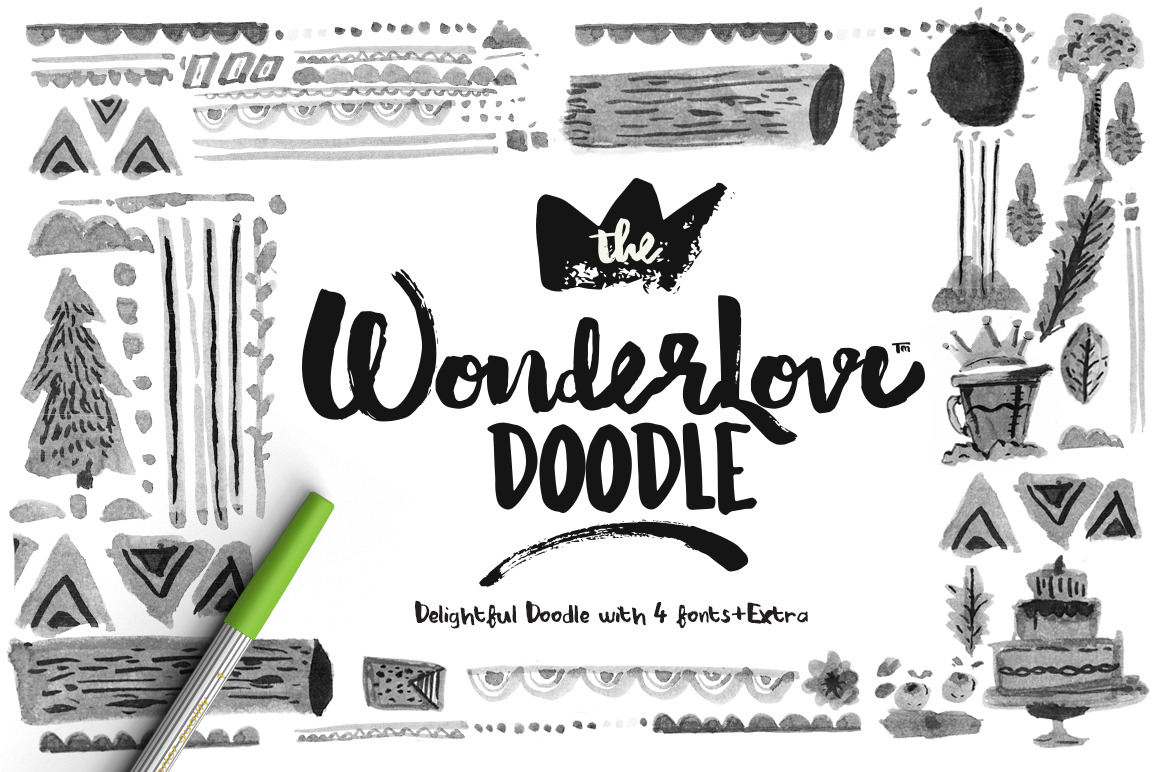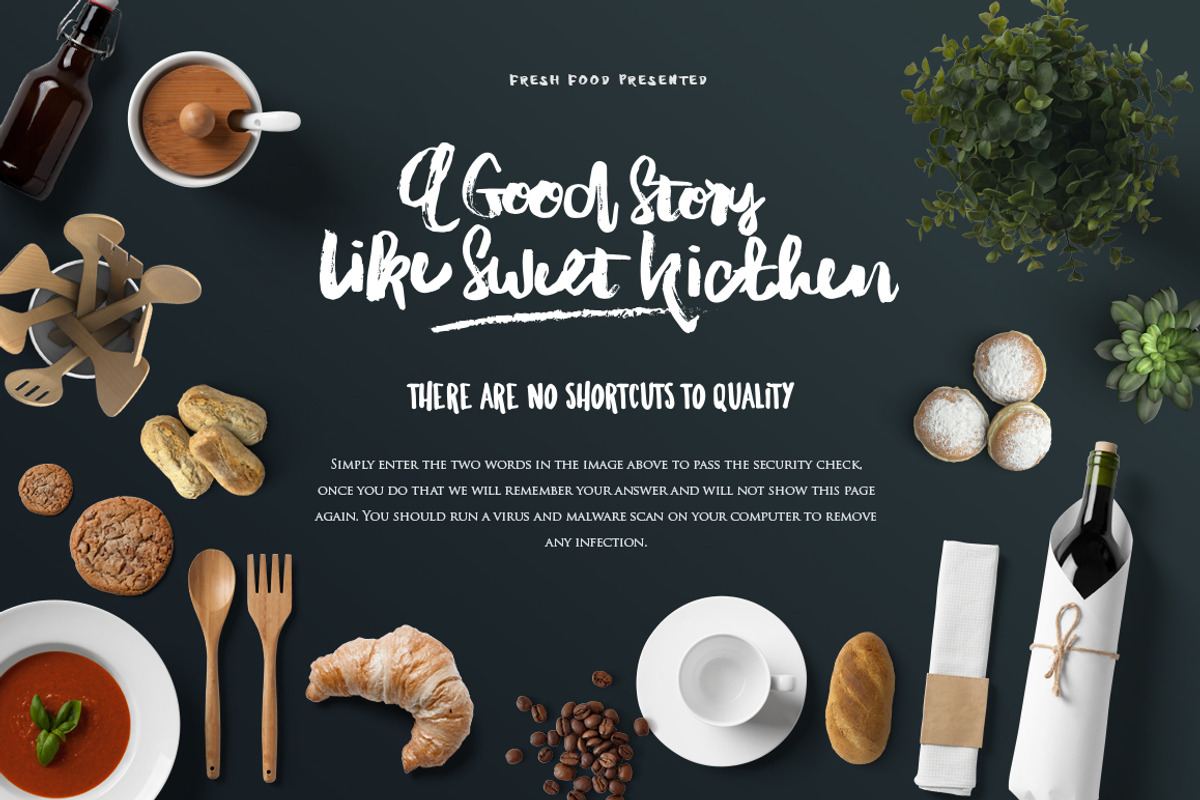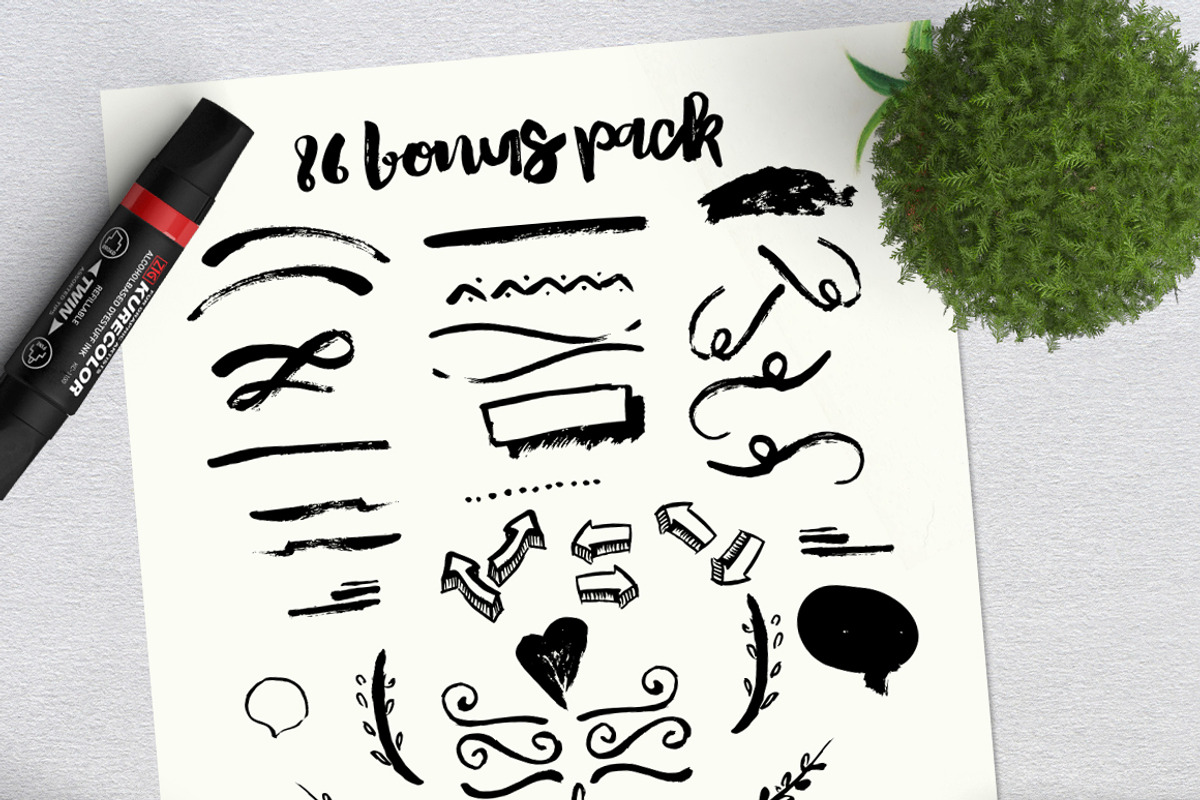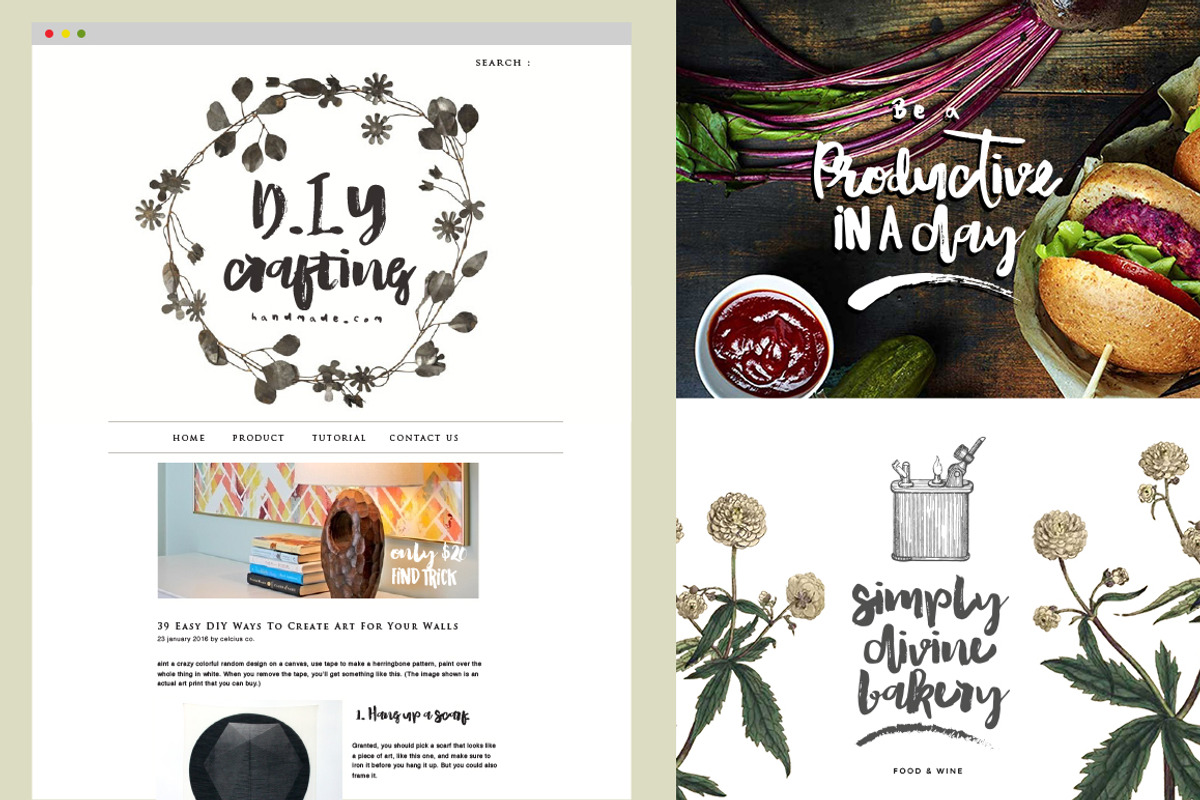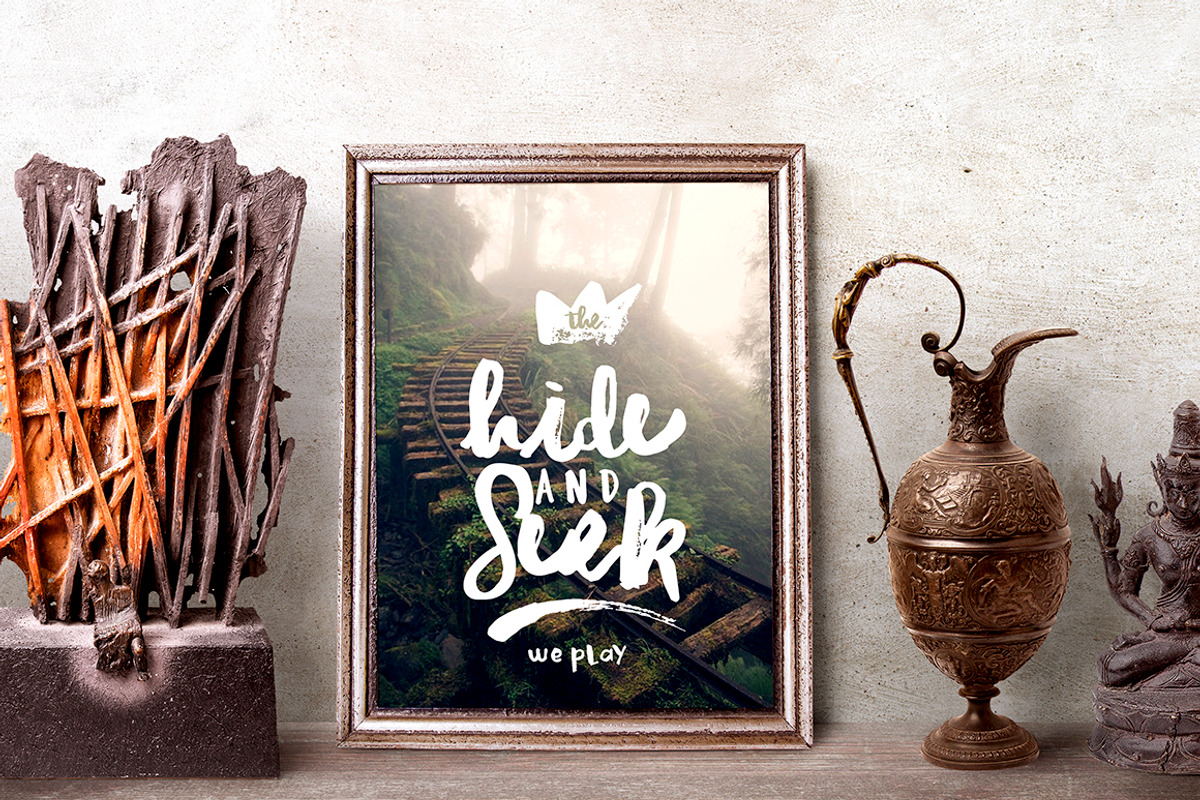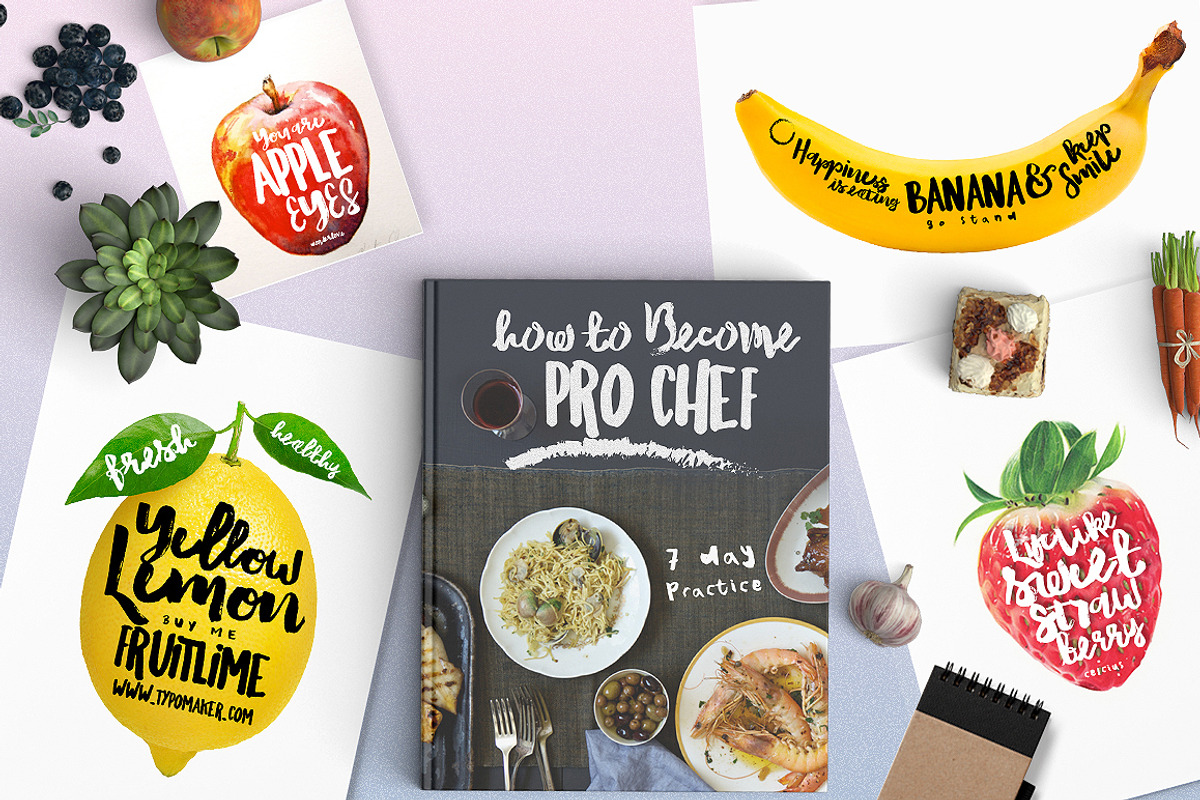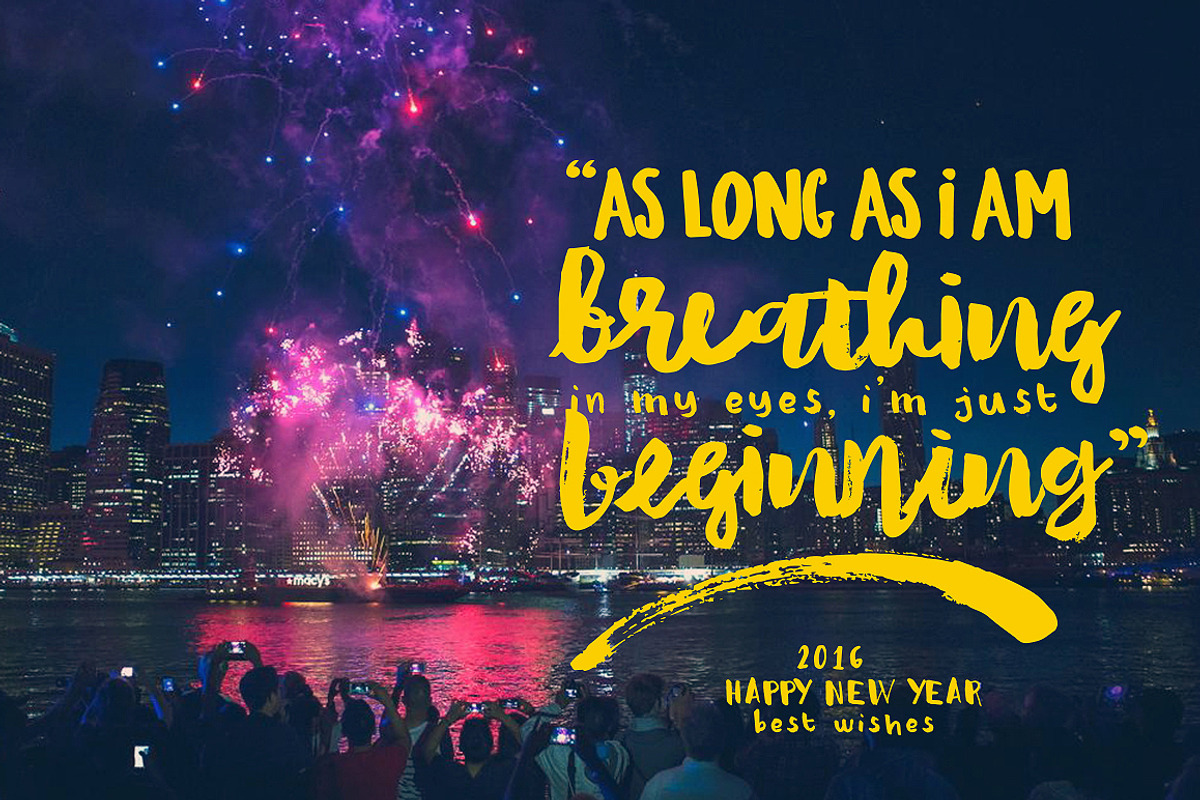
Wonderlove Doodle (4 Fonts)+Extra
Hello thanks for checking out, introduce with Wonderlover Doodle typeface. Instant doodle typography.
I tried with handmade doodle concept come with script or marker, and this is can be a perfect combine with each other. Create something different with some dancing ligatures and unformal alternates,(please see the feature open type in preview pages) with total more less 600 glyphs can make the unique art, just combine with the 86 bonus pack
With the caps style and lowercase, quickly get alternative versions of each letter just by using upper and lowercase letters.
Suitable for making crafts manual arts. greeting in love with the natural impression, wedding card, coocking receipt, brithday party for kids, header, quotes printed, logo, fashion blogger, and whatever your imagination come out.